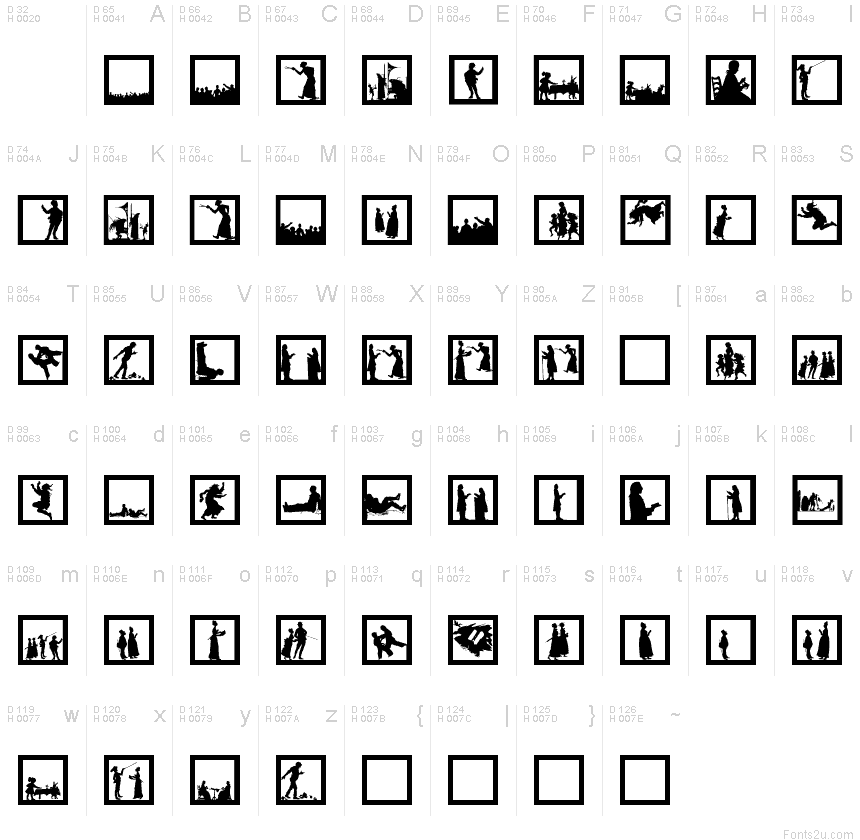
SomeNewSilhouettes
Some New Silhouettes by M. Klein is a free fantasy silhouette dingbat font built from solid human figures in dramatic poses. Costumed characters, cloaked forms, and animated gestures give the collection a theatrical, storybook quality.
Fantasy game studios and theater companies can use these figures in branding, posters, and event invitations. They also suit illustrated book covers and historical entertainment graphics. Each figure can act as a small emblem, linking a product identity to a cast of recognizable, mysterious characters.